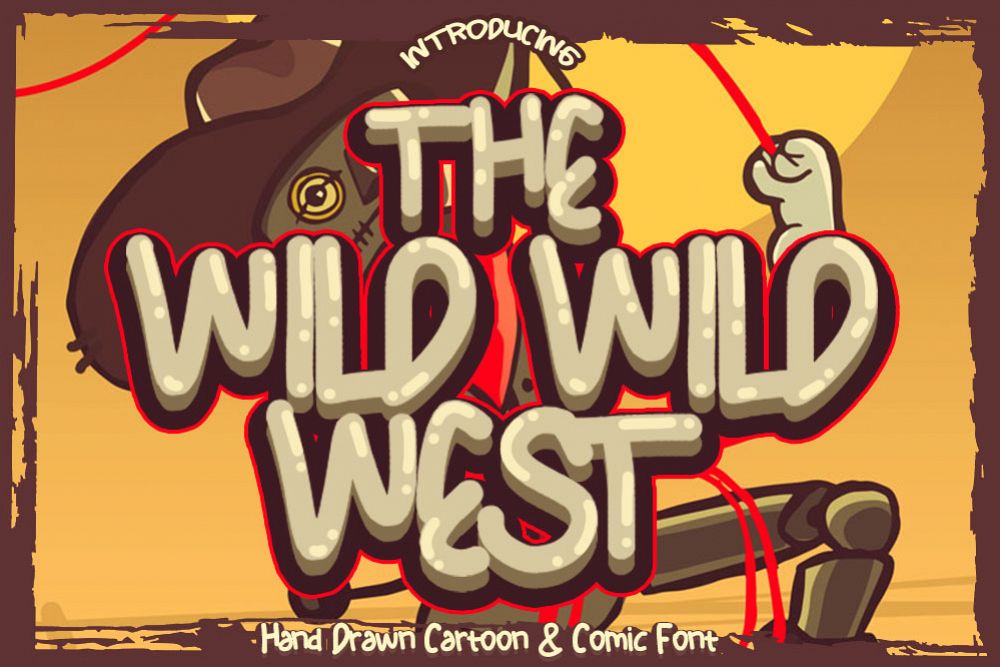
THE WILD WILD WEST
WILDWILDWEST-Regular
introduce my newest font THE WILD WILD WEST FONT. This font is very easy to use for all designs. especially for comic designs, cartoons or for other story books. This font has uppercase, lowcase, numeral & punctuations features and has the format otf and ttf. very easy to use and very easy to edit according to your design needs.how to make a shadow as in the preview: